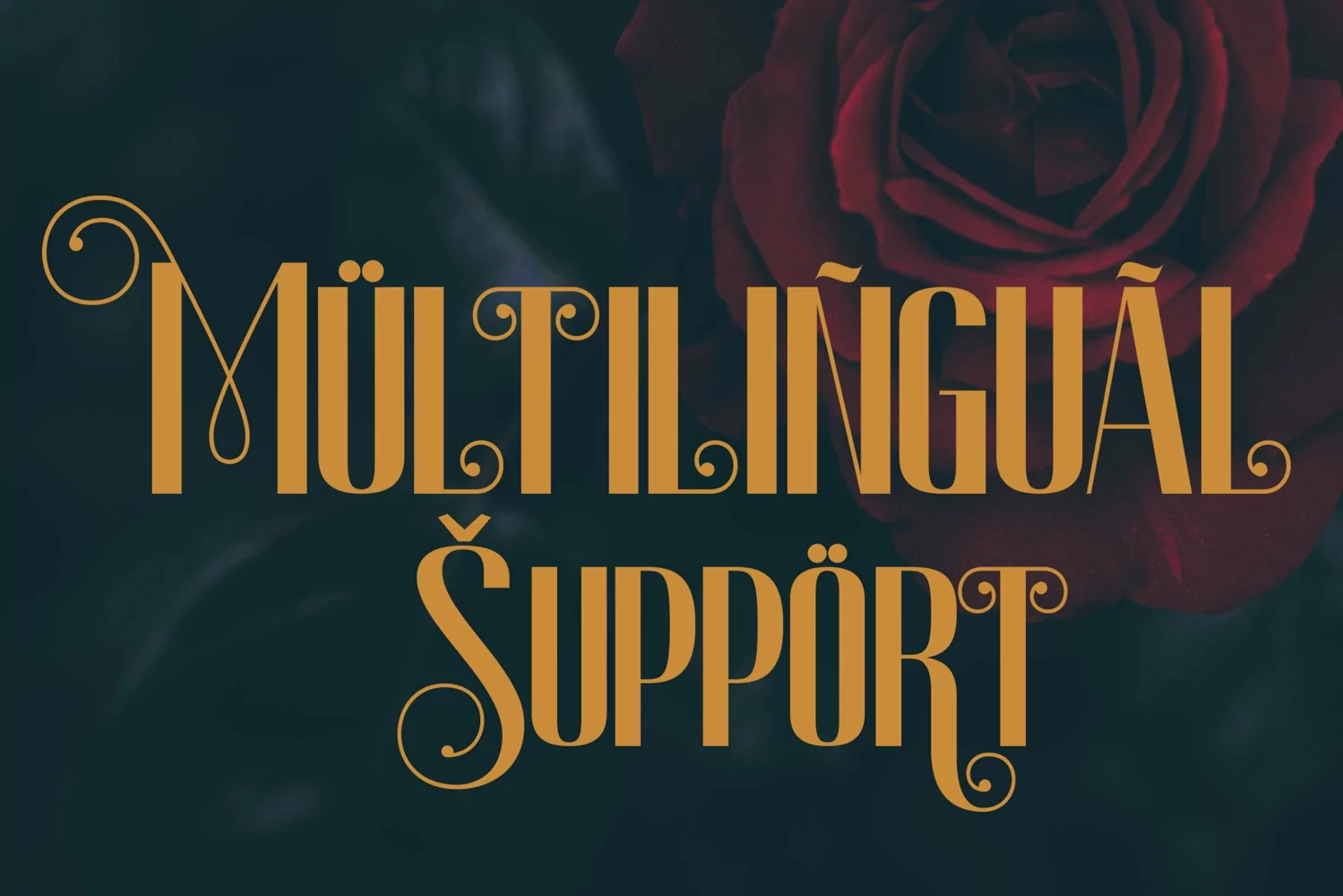
Marsvolta
**Marsvolta Font**
This pair was inspired by the retro motorbike poster design that i saw on some coffee shop, It was crafted by hand specially to add natural handmade feeling in its brand identity than i make it clean with pentool.
Marsvolta font has 214 character set included
Marsvolta Font is very good looking in logo, labels, product packaging, invitations, advertising and others.